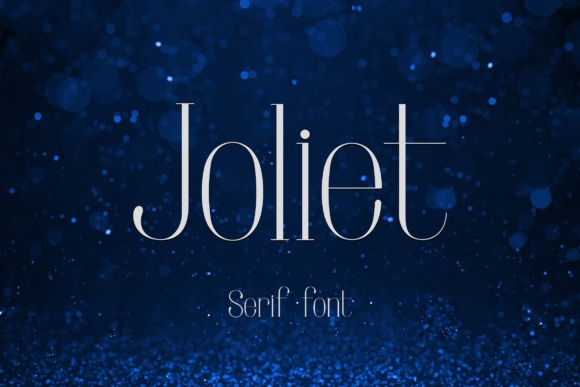
Joliet Font
Behold, Joliet Font, an exquisite serif typeface that breathes life into elegant headlines and logo designs with an enchanting aura. Crafted by the visionary Corgi Astronaut, Joliet's refined strokes and graceful curves embody timeless beauty and sophistication. Prepare to be captivated by its allure as it transforms your creative endeavors into masterpieces.
Step into a world of visual harmony as Joliet Font effortlessly blends with script and sans serif fonts, creating a symphony of typographic elegance. Its versatile nature allows it to seamlessly adapt to your diverse design needs, whether it's a captivating logo, an attention-grabbing poster, or an unforgettable branding project. Unleash your creativity and watch as Joliet Font weaves magic into your designs.
Immerse yourself in the artistry of Joliet Font, where every letterform is meticulously crafted to strike a perfect balance between readability and aesthetics. Its carefully designed serifs add a touch of classic elegance to your headlines, making them stand out with poise and distinction. Let Joliet Font elevate your words, turning them into visual poetry that speaks to the hearts of your audience.
With Joliet Font, you'll never again struggle to find the perfect font for your designs. Its timeless charm and versatility make it an indispensable tool in the arsenal of any creative professional. Embrace the elegance, embrace the charm, and elevate your designs to new heights with Joliet Font.